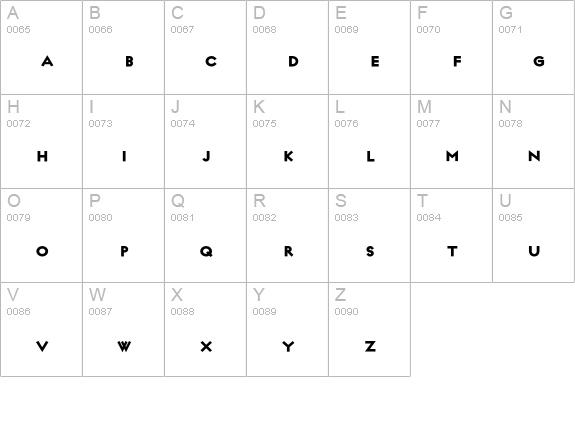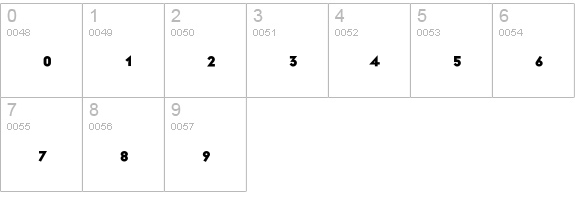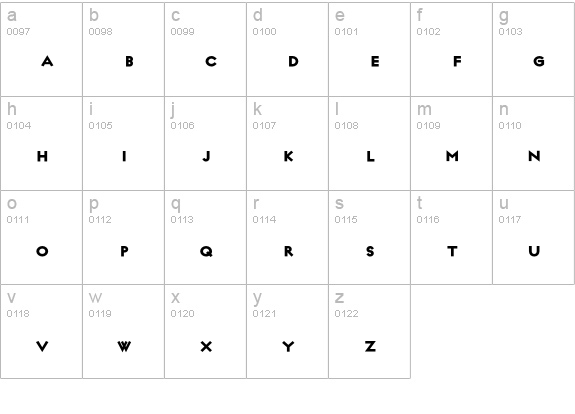
Identification-05C font is a stunning and versatile typeface that combines a modern and futuristic aesthetic with a touch of elegance. This font is perfect for a wide range of design projects, including logos, titles, headers, and more. With its clean lines and unique letterforms, Identification-05C font is sure to make a bold statement in any design. Whether you're creating a sleek and minimalistic brand identity or a striking poster, this font will add a touch of sophistication and style. One of the greatest advantages of Identification-05C font is that it is freely available to download at FontsMarket.com. This means that you can easily access and use this font for your personal and commercial projects without any hassle. Its availability for free download makes it accessible to designers of all skill levels, from beginners to professionals. The versatility and elegance of Identification-05C font make it a must-have in any designer's toolkit. Its wide range of glyphs and alternate characters allow for endless possibilities in creating unique and eye-catching designs. Whether you're designing for print or digital media, this font will surely elevate your work to new heights. So, why wait? Download Identification-05C font for free at FontsMarket.com and unleash your creativity with this captivating typeface.